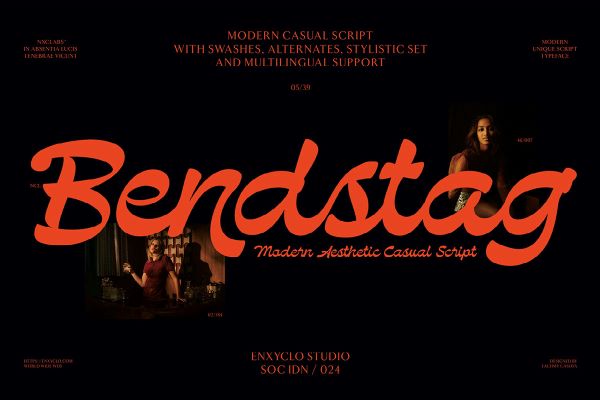
NCL Bendstag Font NCL Bendstag by Enxyclo Studio is a free modern casual script font with an effortlessly flowing character — its calligraphic letterforms carrying the warmth of hand-lettering while maintaining the polish and technical refinement of a professionally designed display face. With 283 unique glyphs, alternates and stylistic sets, multilingual support, and multiple format options including TTF, OTF, WOFF, and WOFF2, it arrives fully equipped for both print and digital work. A standard commercial…
Shalona Font Shalona by tana design is a free serif font with a modern, clean sensibility and the kind of composed elegance that makes it an instinctive fit for logo design, brand identities, and visual identity systems. Its well-proportioned letterforms carry an understated sophistication — structured and precise without feeling cold, refined without being stiff. Whether used at headline scale or as a logotype anchor, Shalona communicates quality and intentionality with minimal effort. Available free…
Felicity Font Felicity is a free monoline handwritten font with the quiet charm of something made by hand and offered from the heart. Born during the early days of the pandemic, it traces its origins to a personal discovery of lettering — and the idea of turning that passion into a usable typeface. Its clean, flowing strokes carry a minimalist sensibility that feels both intimate and versatile, making it a natural fit for branding, invitations,…
Mochary Font Mochary by Mans Greback is a soulful calligraphic https://designbeep.com/tag/cursive-font/ that carries an unmistakable sense of elegance and spiritual depth. Its flowing, swash-accented letterforms evoke the craft of fine penmanship while maintaining a warmth and approachability that keeps it from feeling cold or formal. A natural choice for classic movie titles, theatrical posters, cosmetic packaging, novel introductions, and personal correspondence — any setting where the words deserve to be dressed in something beautiful. Free…